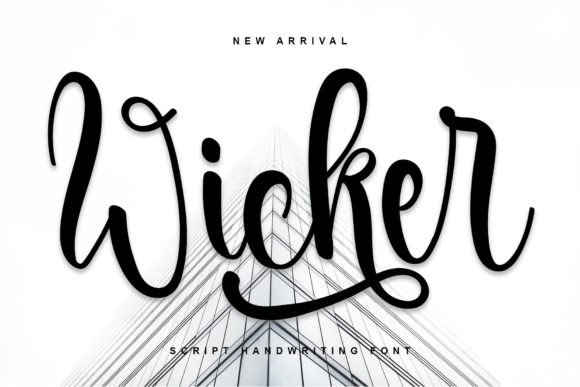
Introducing Wicker Font, a captivating script font family that exudes contemporary elegance and timeless sophistication. Inspired by the artistry of classic calligraphy, Wicker Font stands as a testament to the enduring beauty of handwritten artistry, meticulously crafted to elevate your designs with a touch of unparalleled charm.
With its carefully balanced strokes and harmonious curves, Wicker Font invites you to explore a world of creative possibilities. This versatile font family effortlessly breathes life into your projects, whether you seek to create captivating logos, stunning business cards, or alluring social media graphics. Each letterform dances across the page with a grace and fluidity that commands attention, making Wicker Font the perfect choice for those seeking to make a lasting impression.
As a meticulously designed script font, Wicker Font embodies the essence of refined artistry. Its intricate flourishes and delicate swashes add a touch of visual intrigue, drawing the eye to every detail. Whether you're a seasoned designer or just starting your creative journey, Wicker Font empowers you to express your individuality and make a statement with every project.
Step into a world of endless creative possibilities with Wicker Font. Its versatility extends beyond traditional design applications, making it an ideal choice for crafting unique branding materials, eye-catching website designs, and captivating social media posts. The possibilities are boundless, limited only by your imagination.
Wicker Font - A Symphony of Style and Sophistication:
- Timeless Elegance: Inspired by classic calligraphy, Wicker Font captures the charm and sophistication of traditional handwritten artistry, bringing a touch of timeless elegance to your designs.
- Unparalleled Versatility: With its ability to effortlessly adapt to a wide range of applications, Wicker Font empowers you to create stunning logos, captivating business cards, alluring social media graphics, and so much more.
- Creative Expression: Wicker Font's intricate flourishes and delicate swashes provide endless opportunities for creative expression, allowing you to infuse your projects with personality and flair.
- Boundless Possibilities: Unleash your imagination and explore the limitless creative possibilities that await you with Wicker Font. From branding materials to website designs and social media posts, this font family is your gateway to creating truly captivating visuals.
Wicker Font - Transform Your Designs with Timeless Beauty.